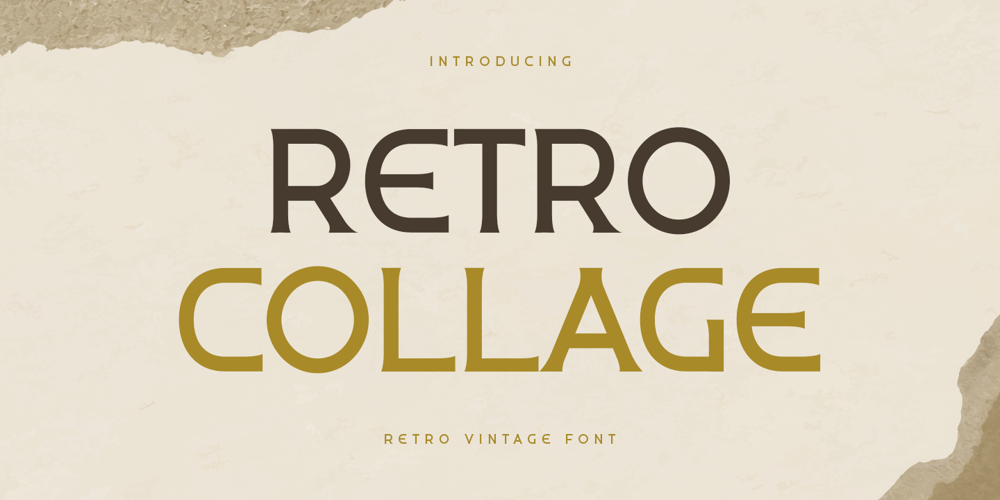
Retro Collage Font Family was designed by Zamroni Hamzah and published by Sensatype Studio. Retro Collage contains 1 styles and family package options. Retro Collage is a New Vintage Font with Retro style inside.An extraordinary style with vintage and retro in serif font, to make your design more standout. As our focus that analyze any typeface that helps to leverage any logo design to look more modern and unique. We prepared this font with any vintage characters to help you create creative style.Retro Collage Vintage Font ready with: Better style of characters with creative style 3 files format already Preview as a inspirations that you can do with Retro Collage font All Uppercase characters Wish you enjoy our font. ๐